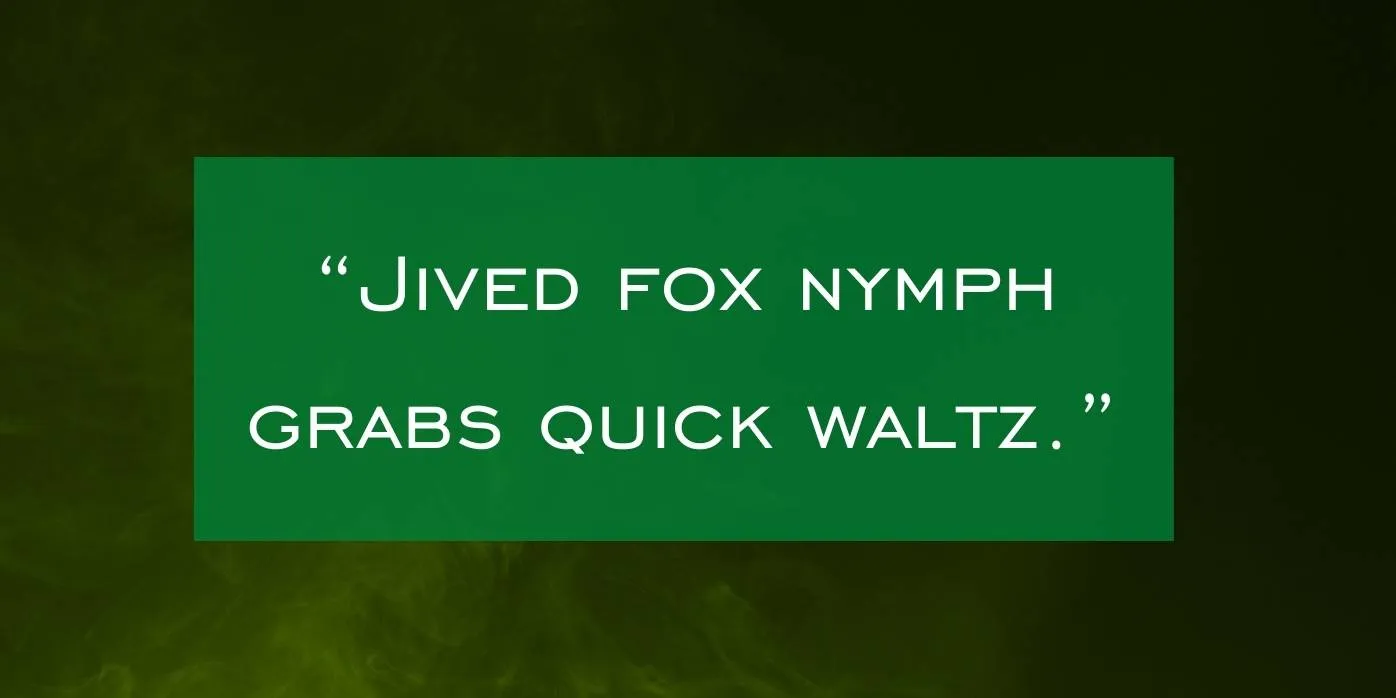
Engravers Gothic BT Font
Today, we introduce a modern font named Engravers Gothic BT Font. This awesome typeface was developed by elegant designer Bitstream. This classy font belongs to the Sans-Serif font family. This cute font was designed for use in different printing uses.
This stunning font is a great choice for various types of documentation. This attractive font is best for Adobe Font and is also specified by the CSS Family. This stylish typeface comes in various types of weights these weights are Bold, medium, and more. This charming font is used for different attractive works and is more impressive for all the audience.
This font has simple and clean features. The Light Font is one of the most similar to this classy font family. This cozy font is best for different plans and functions and erns massive fame in the designing industry. Its copy and paste function is best for different text designs.